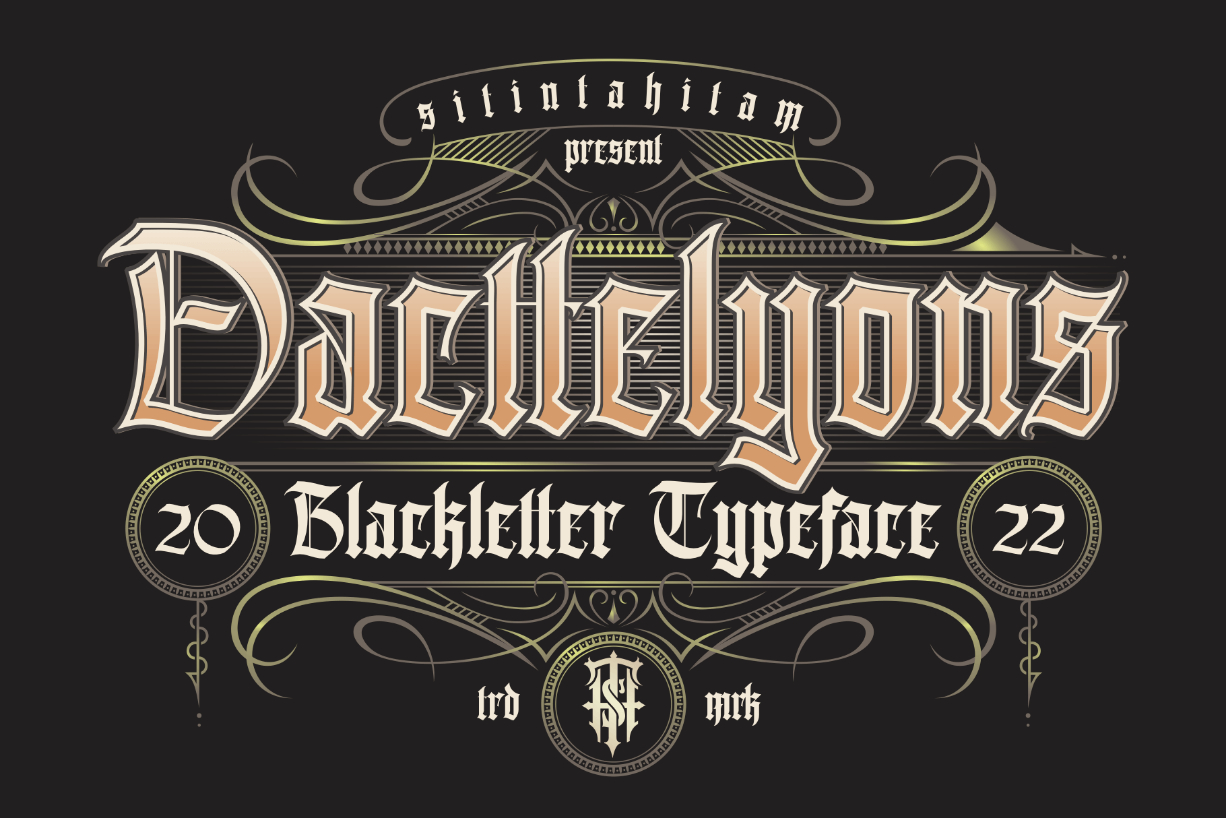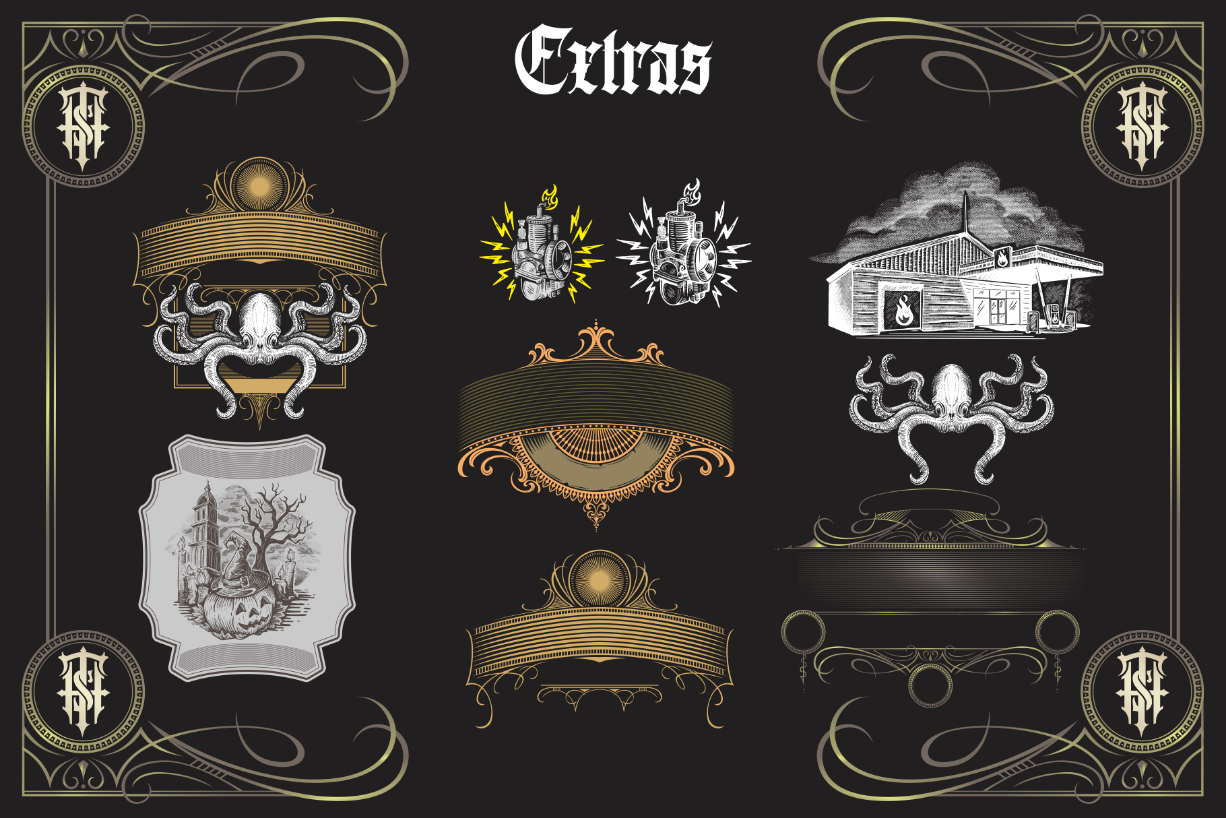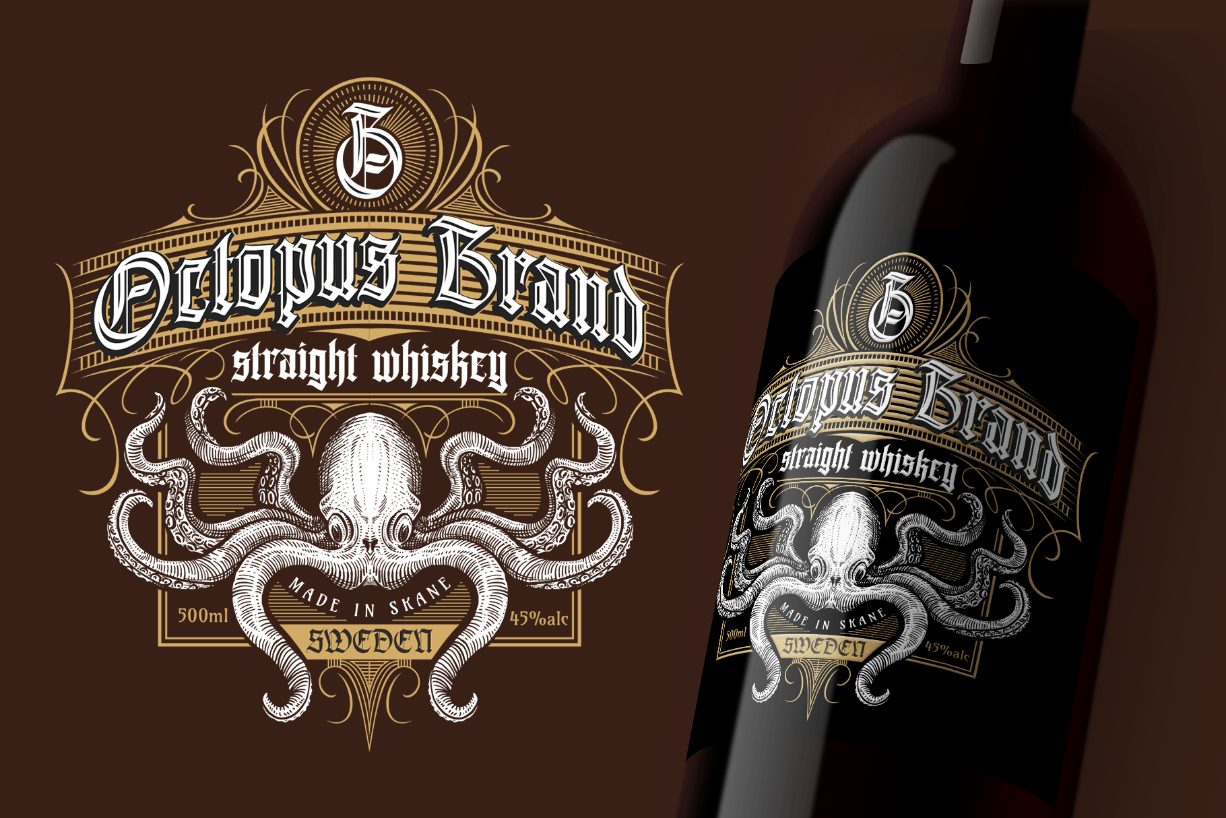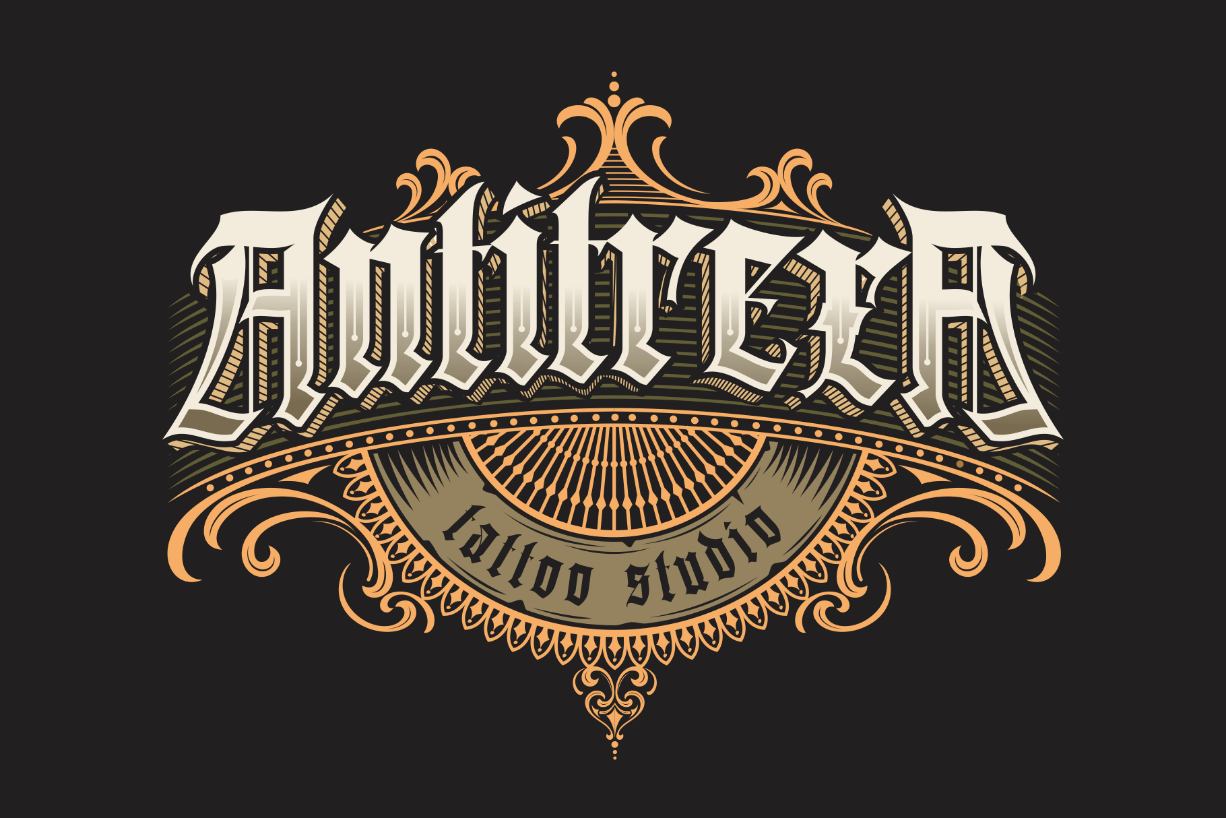
About Dacttelyons Font
Dacttelyons is a blackletter typeface inspired by the gothic era. This typeface is perfect for people looking for vintage with a dark feel. Dacttelyons is suitable for any graphic designs such as branding materials, t-shirts, prints, logos, posters, packaging, etc.